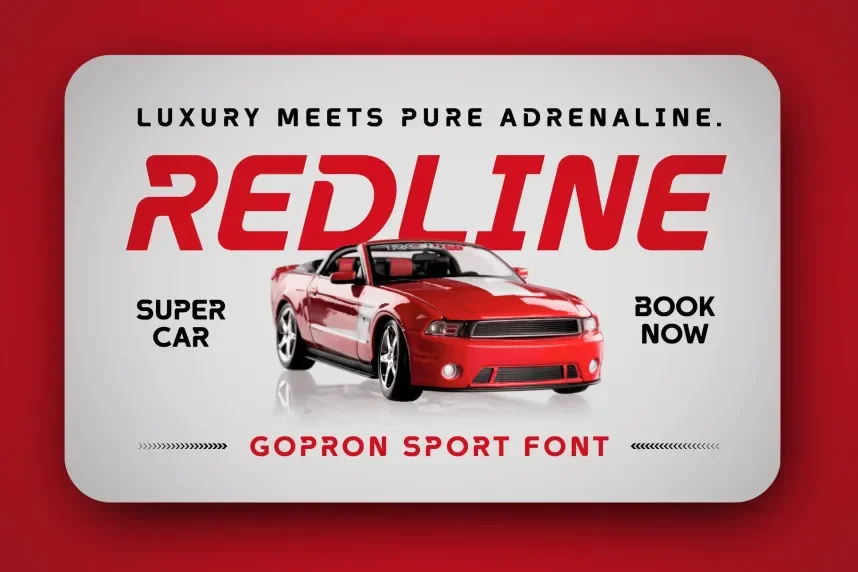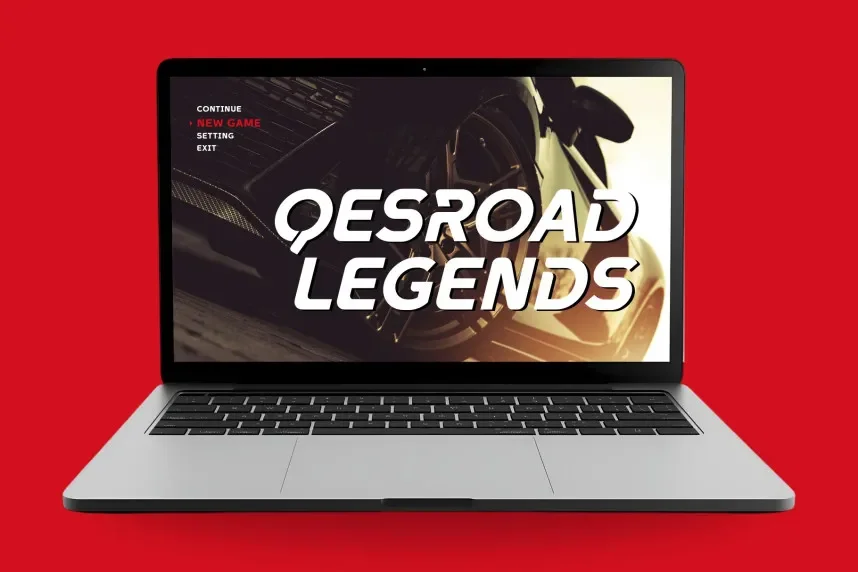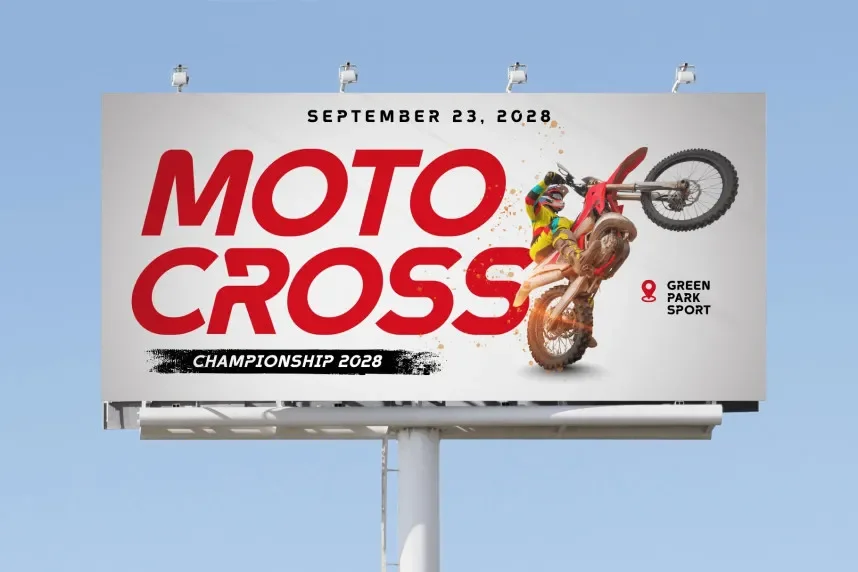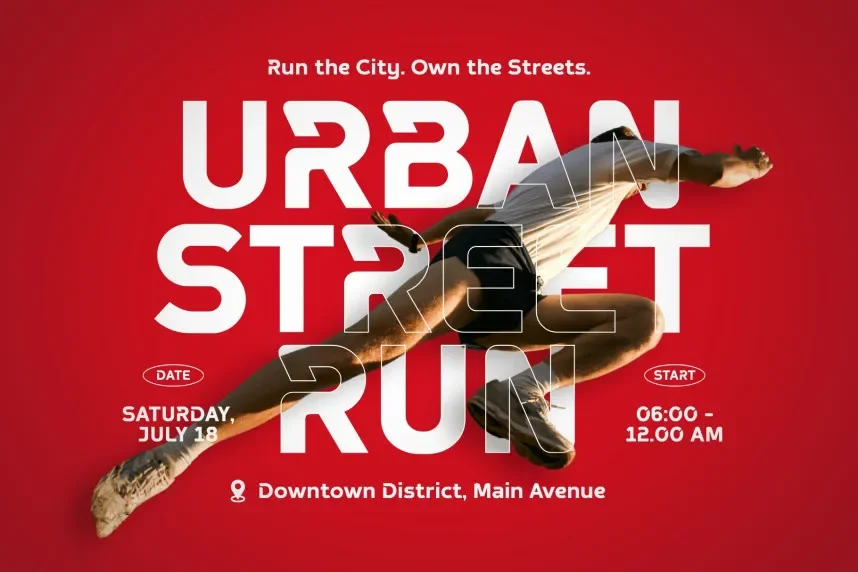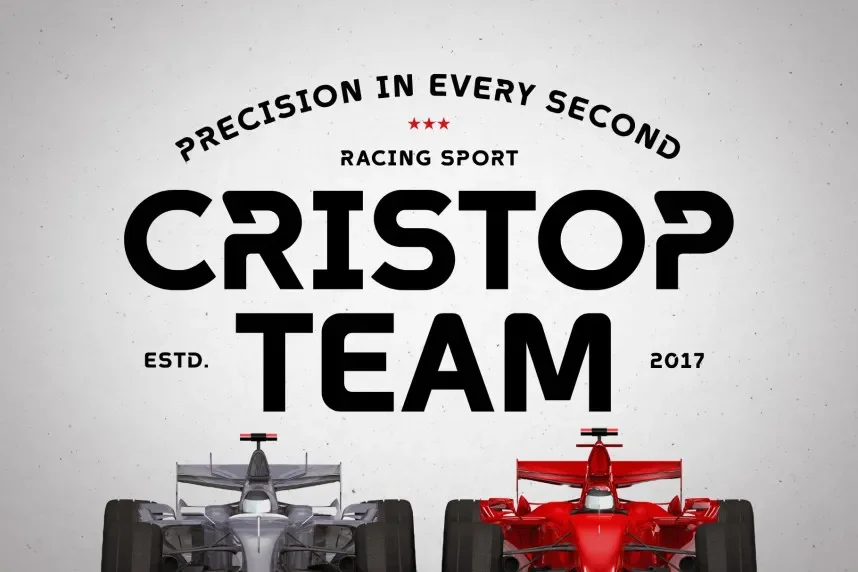
Gopron Font is a modern display typeface created to address challenges in creating strong, consistent headings for websites, branding, and digital products. Designers often need bold, legible fonts that maintain clarity at different sizes.
The font features geometric letterforms, moderate stroke contrast, and open counters. Its minimal style ensures readability while providing a bold visual impression suitable for short text, headlines, and logo applications.